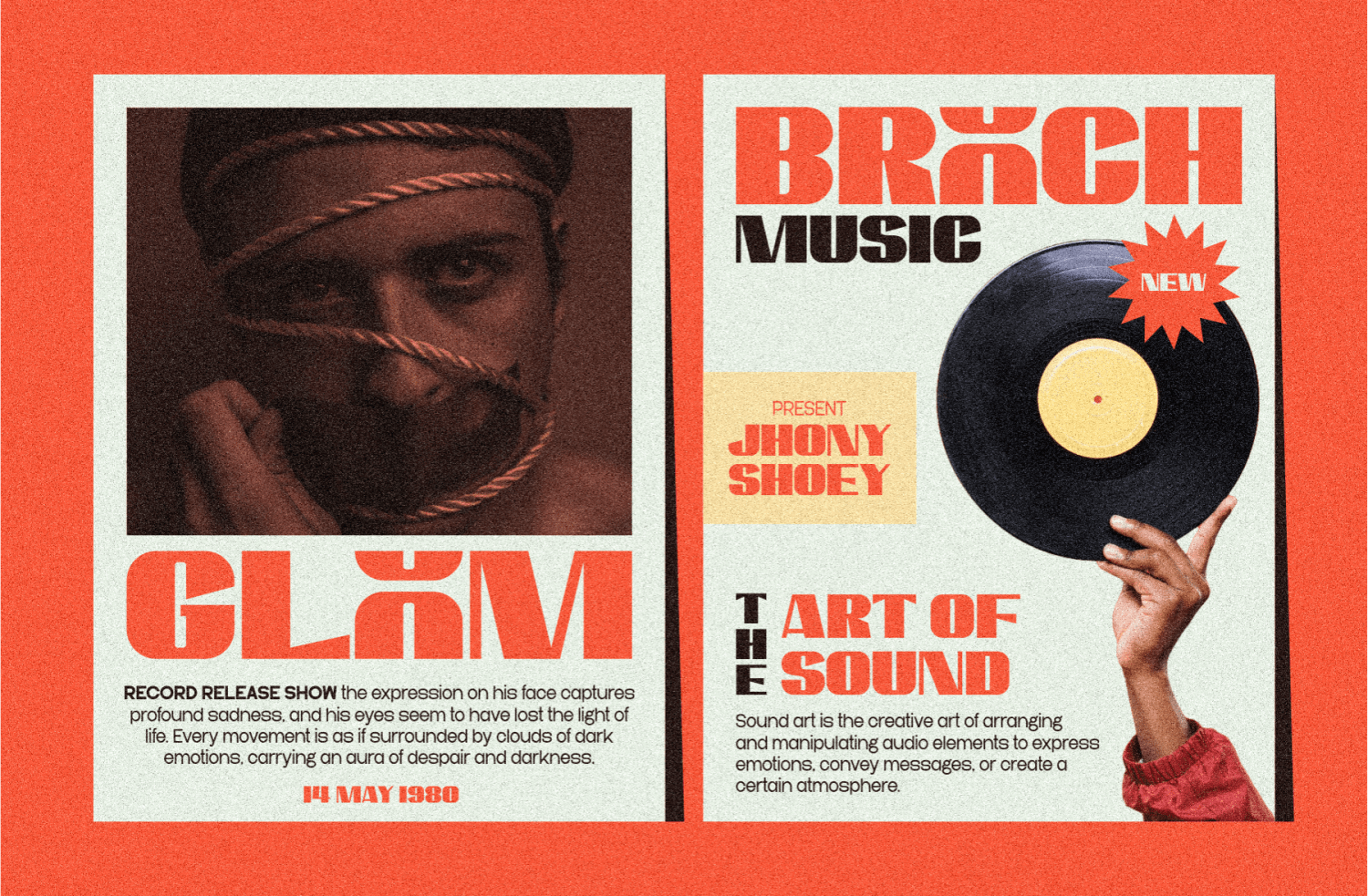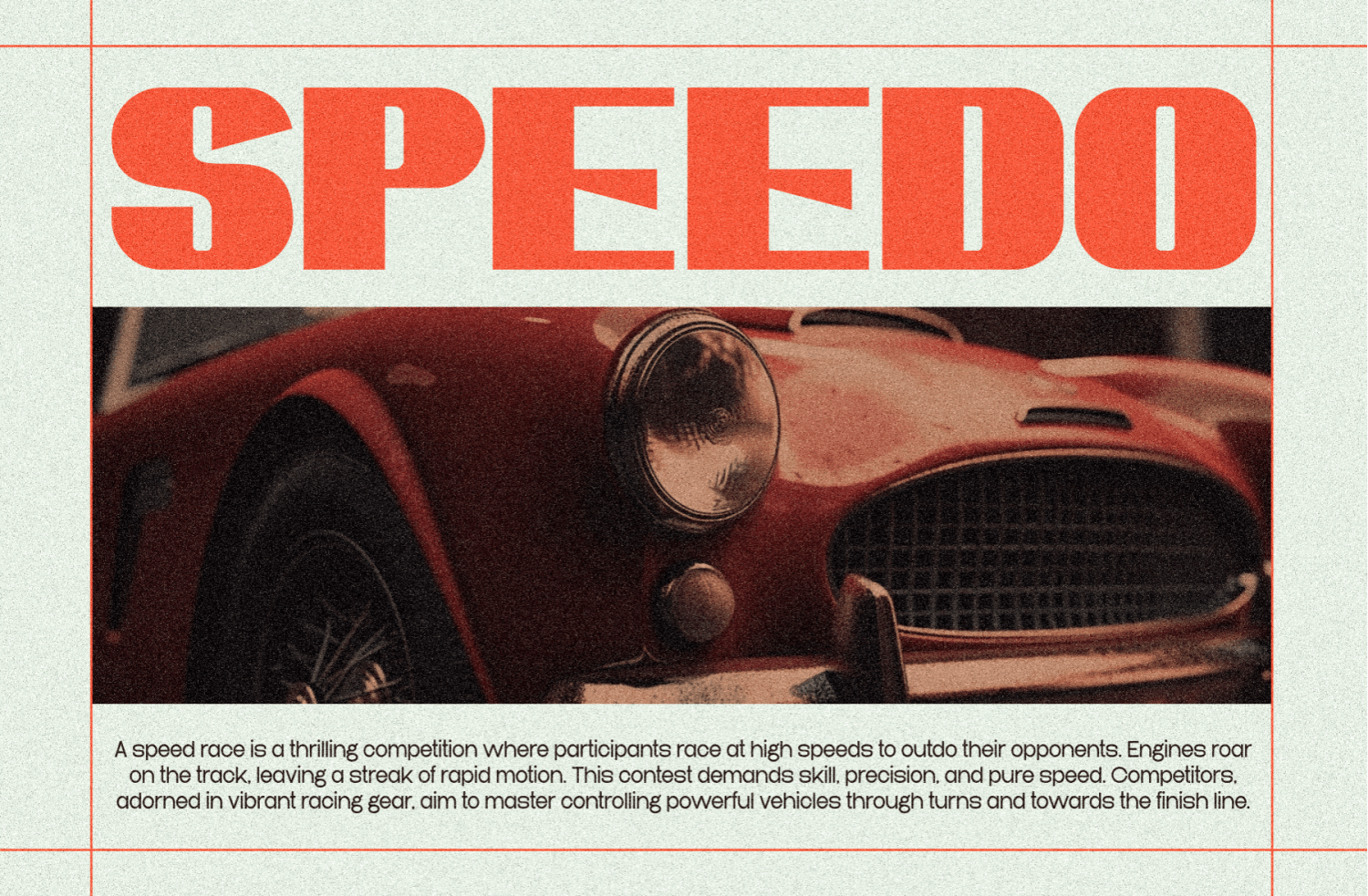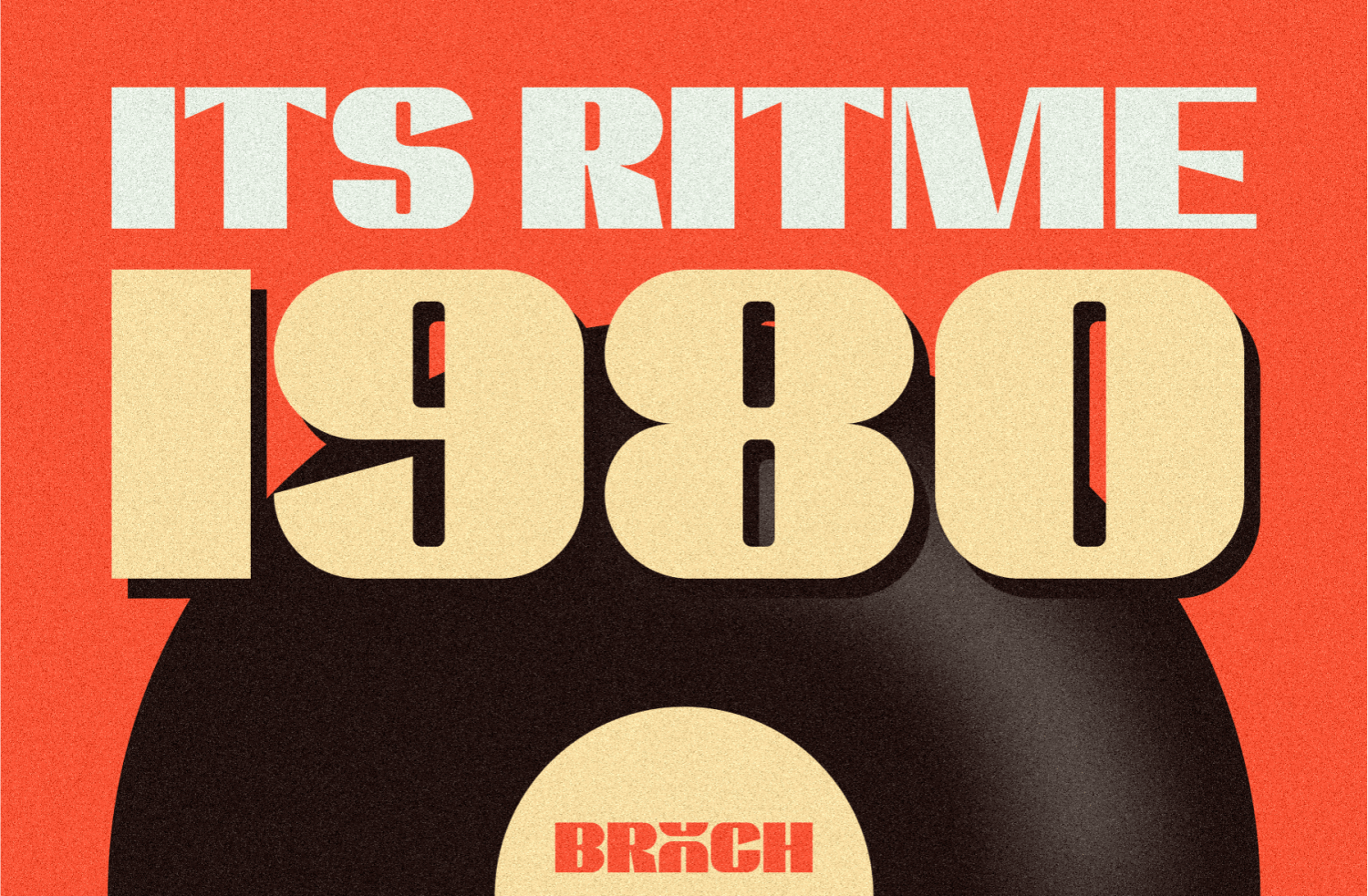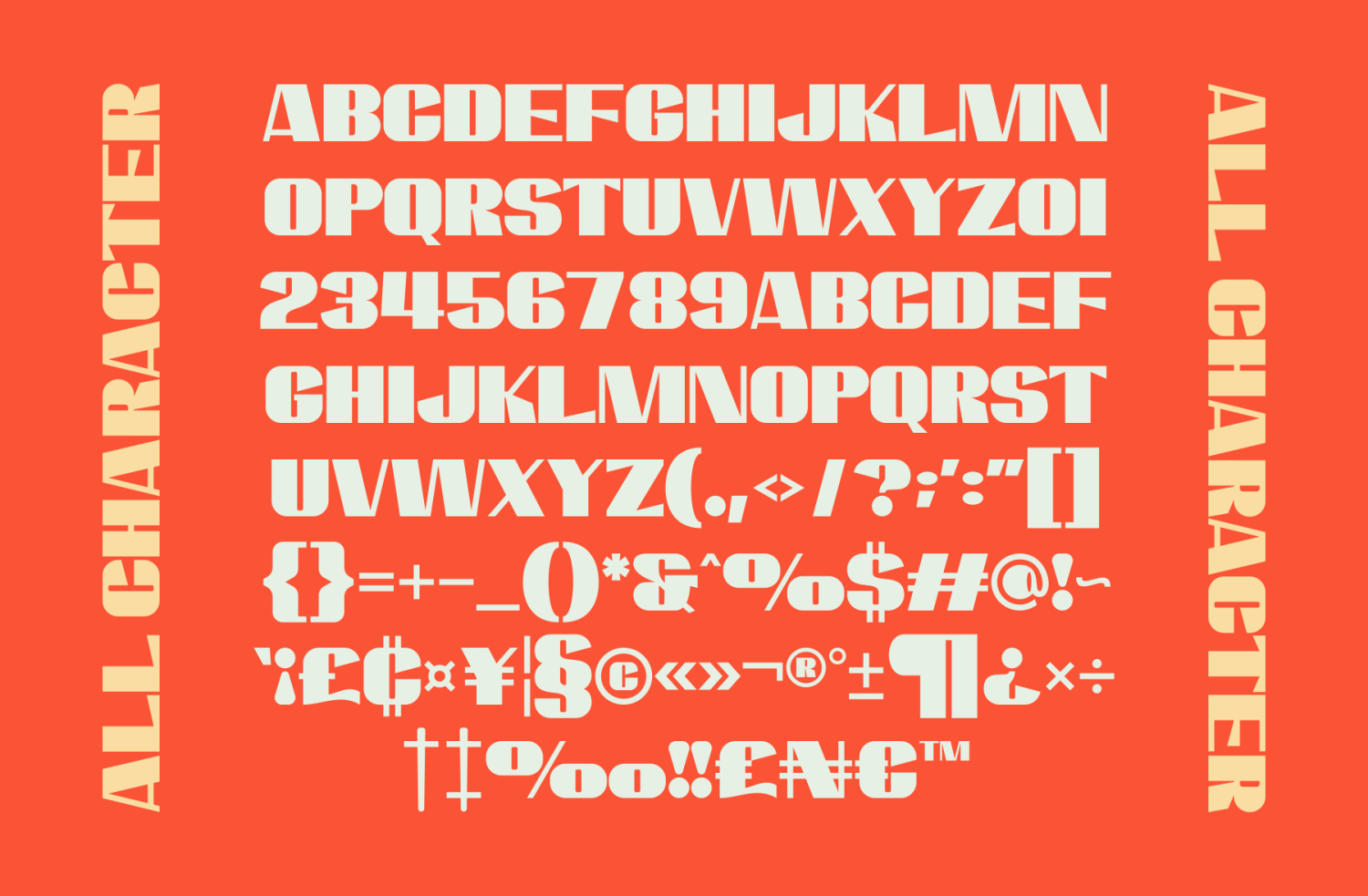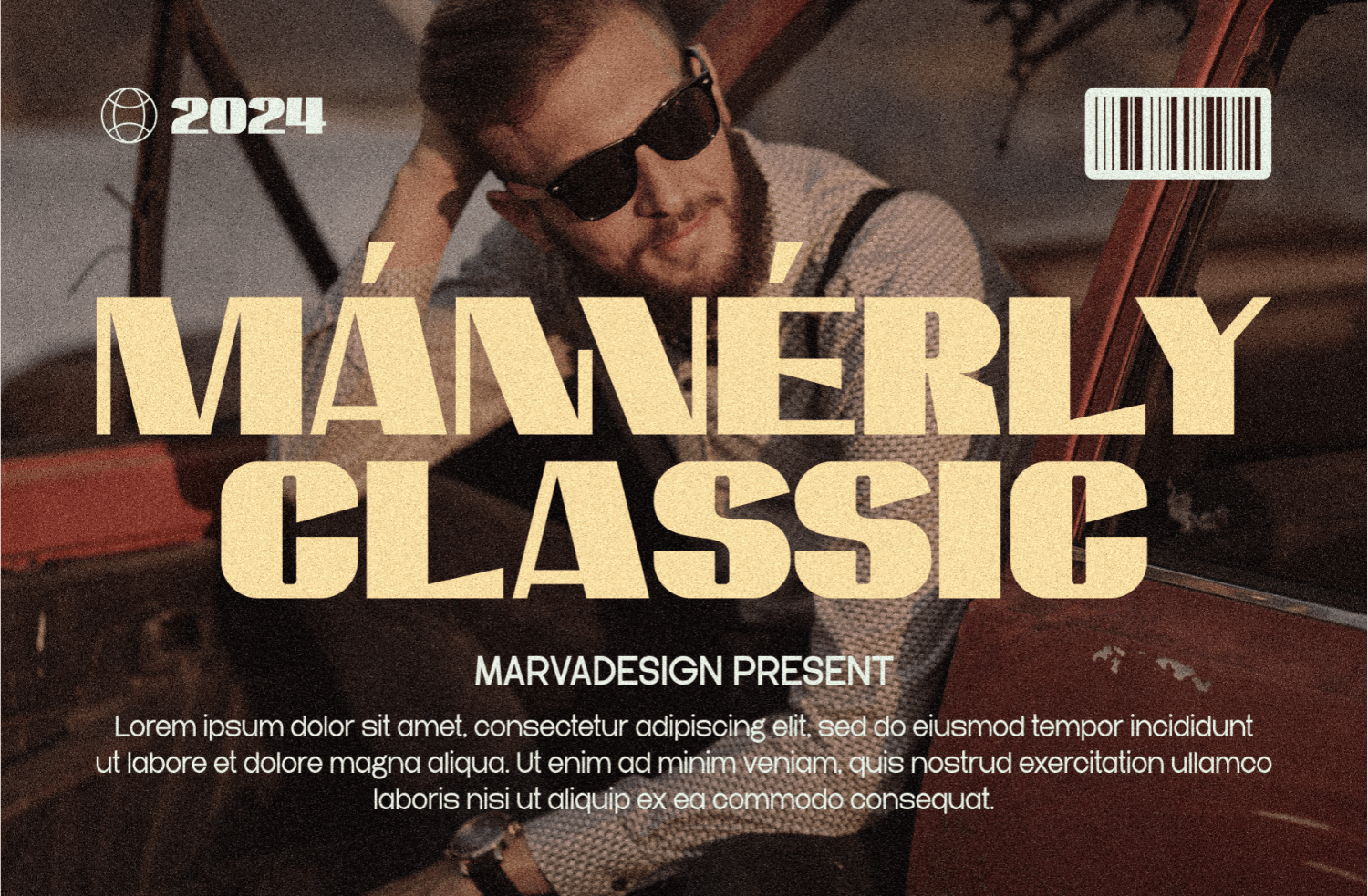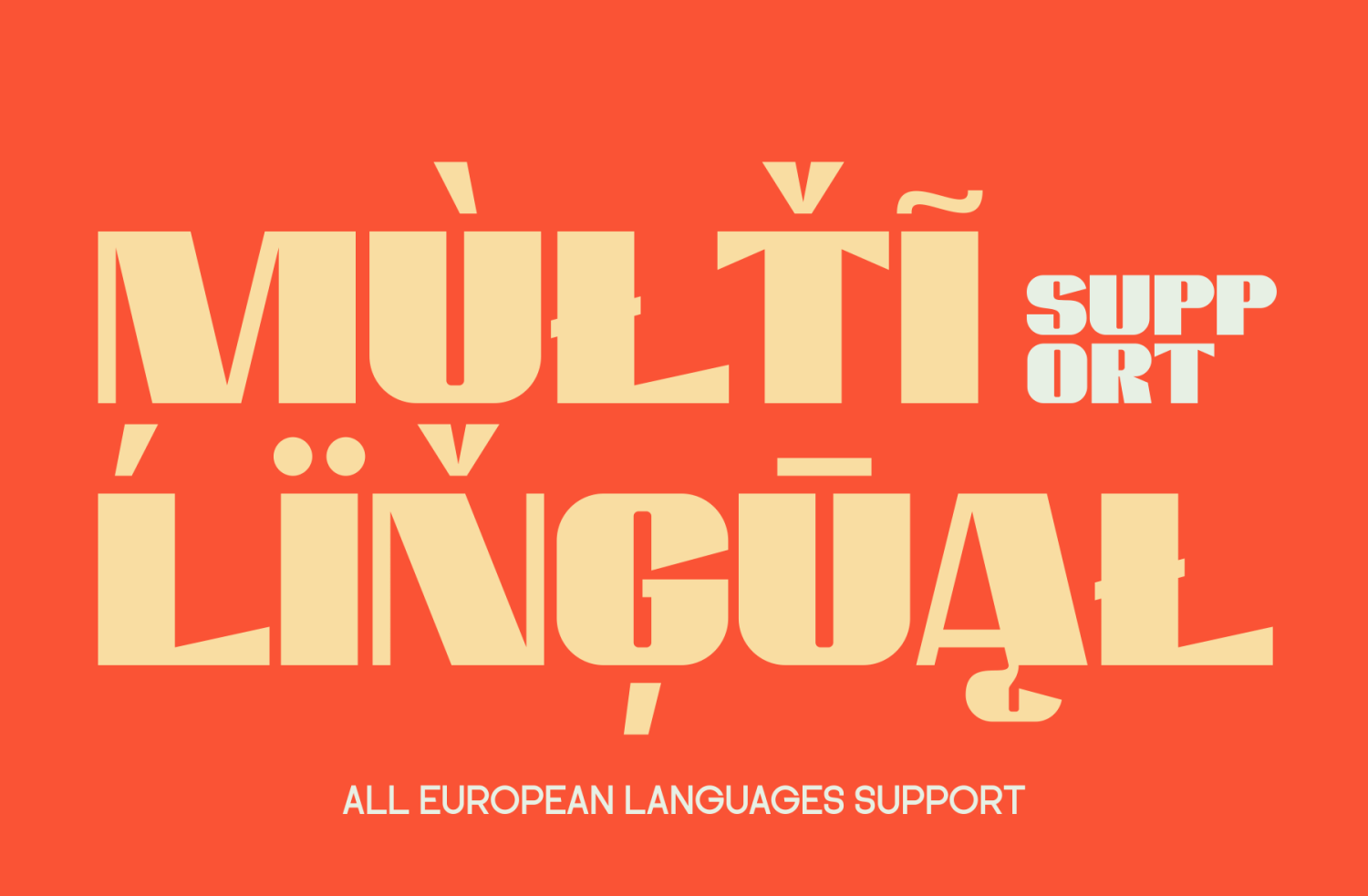
Brooch
Introducing Brooch is a bold and expansive sans-serif retro typeface that embodies a nostalgic yet contemporary appeal. With its wide, heavy letterforms, this font is designed to make a strong visual impact, making it an excellent choice for headlines, posters, and branding materials. The overall structure of Brooch exudes confidence and stability, ensuring readability while maintaining a distinctive personality.
One of the defining features of Brooch is its inclusion of unique ligatures, adding character and artistic flair to the typography. These stylistic elements enhance the font’s versatility, allowing designers to create dynamic and visually engaging compositions. The retro influence is evident in its smooth curves and geometric precision, evoking a sense of vintage charm while remaining suitable for modern design applications.
With its bold width and striking proportions, Brooch is ideal for projects that demand attention and personality. Its fusion of retro aesthetics with contemporary design principles makes it a perfect typeface for logos, editorial headlines, packaging, and promotional materials seeking a bold and stylish typographic identity.